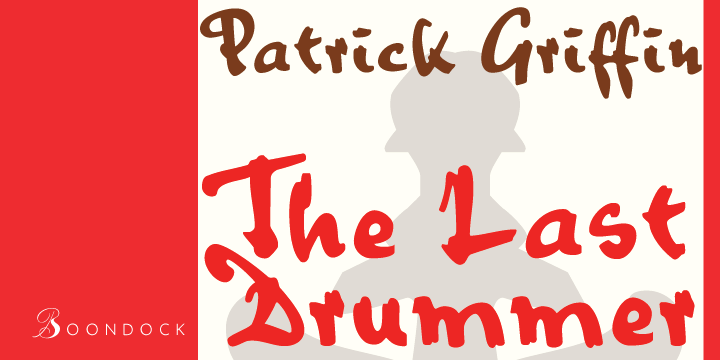
Boondock is a hand drawn and script font published by Canada Type.
Boondock is another Imre Reiner design resurrected from the ashes of hot metal type for digital use. This wild paint font is a revival of the fascinating Bazaar brush type from 1956.
Boondock has some very unique characters that combine to form a statement of casual but loud strength, seriousness and raw primal emotion. Great for short sudden-impact spurts, like book cover titles, single sentence headers, movie posters and music sleeves.
Redrawn from original specimen by Patrick Griffin, and expanded with some built-in extras too add to the convenience of this digital version.